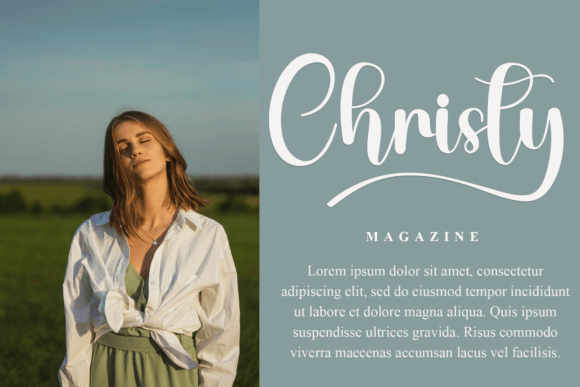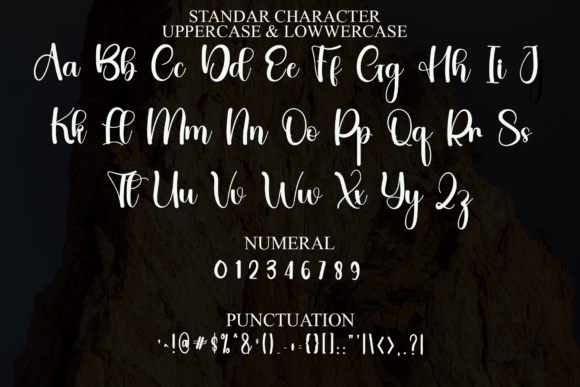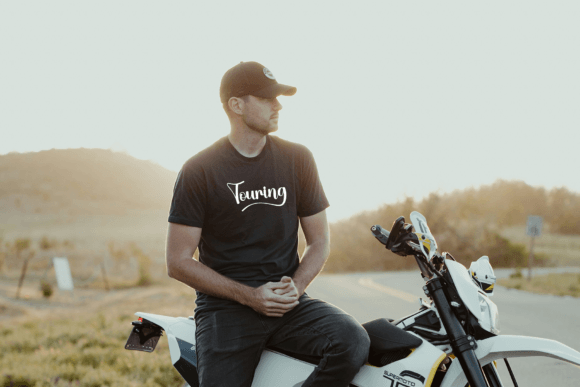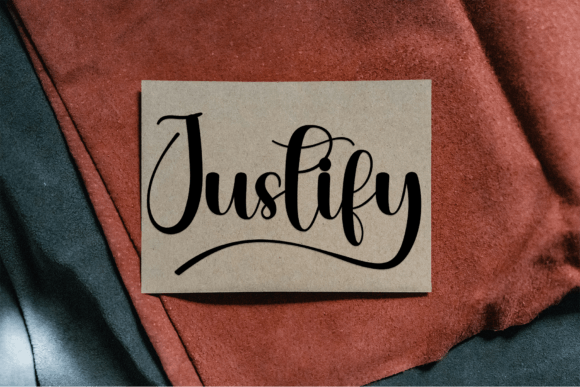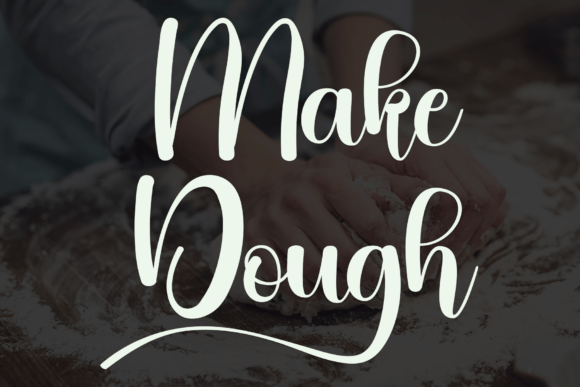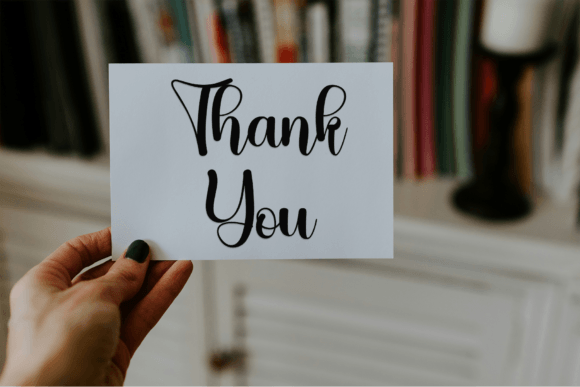
Baking Font: A Deliciously Timeless Handwritten Font for Designers and Crafters
Are you a designer or crafter looking for a font that can add a touch of warmth and personality to your creations? Look no further than the Baking Font, a lovely and timeless handwritten font that’s perfect for creating eye-catching logos, branding, and quotes. In this article, we’ll dive into the features and benefits of the Baking Font, and explore how it can elevate your design game.
A Unique and Beautiful Touch
One of the standout features of the Baking Font is its unique and beautiful touch. Every letter has been carefully crafted to bring a sense of personality and whimsy to your designs. The font’s handwritten style gives it a friendly and approachable feel, making it perfect for brands and designers who want to connect with their audience on a more personal level.
Whether you’re creating a logo, branding materials, or social media graphics, the Baking Font is sure to make your design come alive. Its elegant and flowing lines add a touch of sophistication and elegance, making it perfect for a wide range of design applications.
The Baking Font is PUA (Private Use Area) encoded, which means that you can access all of the amazing glyphs and ligatures with ease. PUA encoding allows designers to access a wide range of special characters and glyphs that are not available in standard fonts. This means that you can add an extra layer of creativity and personality to your designs, without having to worry about complicated font editing software.
With the Baking Font, you can easily access a wide range of glyphs and ligatures, including alternative letters, numbers, and punctuation marks. This gives you the freedom to experiment with different design ideas and create truly unique and eye-catching graphics.
The Baking Font is perfect for designers and crafters who want to add a touch of personality and whimsy to their creations. Whether you’re creating digital graphics, printing designs on paper or fabric, or crafting handmade goods, this font is sure to inspire your creativity.
Designers can use the Baking Font to create stunning logos, branding materials, and social media graphics that will help their clients stand out from the crowd. Crafters can use the font to add a personal touch to their handmade goods, such as scrapbook pages, journal entries, and craft labels.
Benefits of Using the Baking Font
- Unique and beautiful design: The Baking Font has a unique and beautiful touch that will make your designs stand out from the crowd.
- Easy to use: The font is PUA encoded, making it easy to access a wide range of glyphs and ligatures.
- Versatile: The Baking Font can be used for a wide range of design applications, from logos and branding to social media graphics and craft projects.
- Handwritten style: The font’s handwritten style gives it a friendly and approachable feel that’s perfect for brands and designers who want to connect with their audience on a more personal level.
In conclusion, the Baking Font is a deliciously timeless handwritten font that’s perfect for designers and crafters who want to add a touch of personality and whimsy to their creations. With its unique and beautiful design, PUA encoding, and versatile design applications, this font is sure to inspire your creativity and take your designs to the next level.